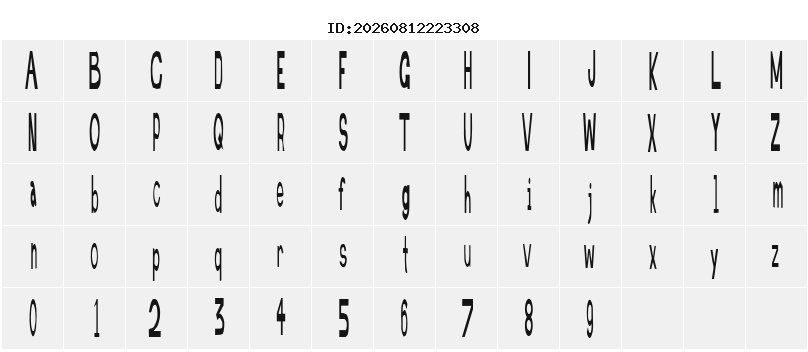
About Retardo Scarecrow.ttf
Retardo Scarecrow.ttf is a modern, elegant sans-serif font designed for ultimate readability and visual harmony. Perfect for branding, headlines, web design, and print materials.